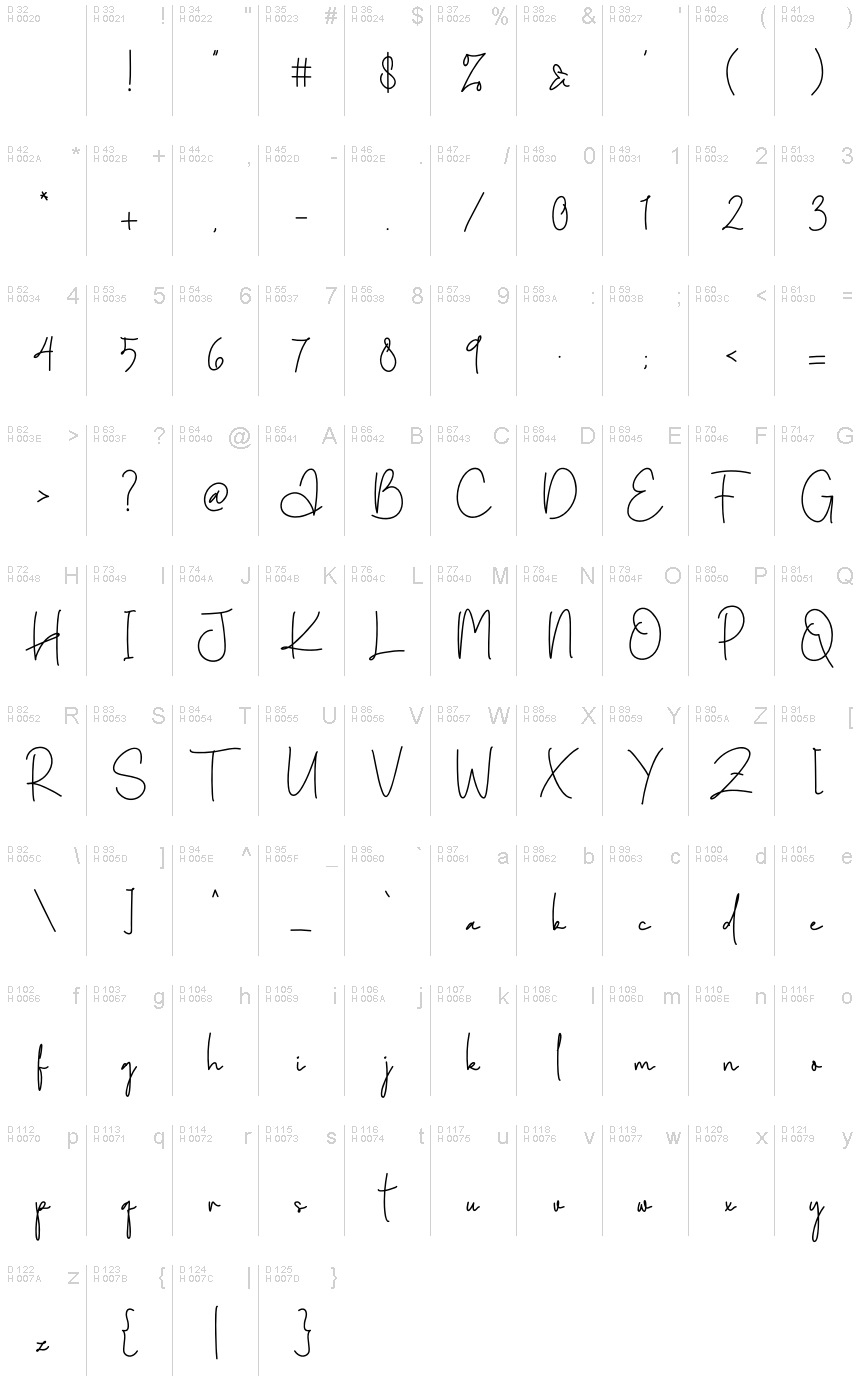
Creative Diary
Creative Diary font from Behind the Ink is an exquisite handwritten font, masterfully designed to become a true favorite. It maintains its classy calligraphic influences while feeling contemporary and fresh. With a casual, natural flow that resembles handwriting, Creative Diary offers an informal and personal mood with an approachable dynamic character. This friendly free handwritten font has organic looks, with some letters extending slightly above the standard height.
Use this beautiful typeface for diary entries, scrapbook titles, home decor items, invitation cards, logo design ideas and packaging designs. It’s also great for educational posters and prints for kids’ rooms or branding projects aimed at millennials.